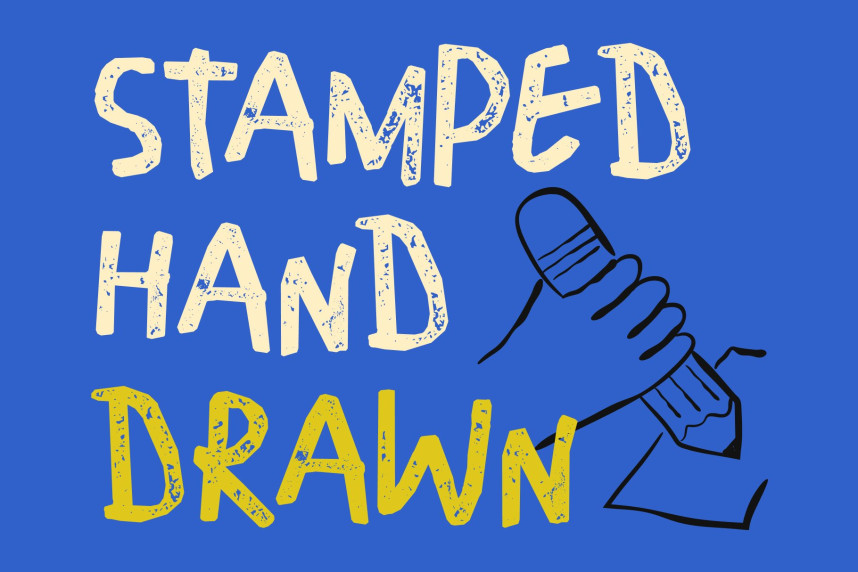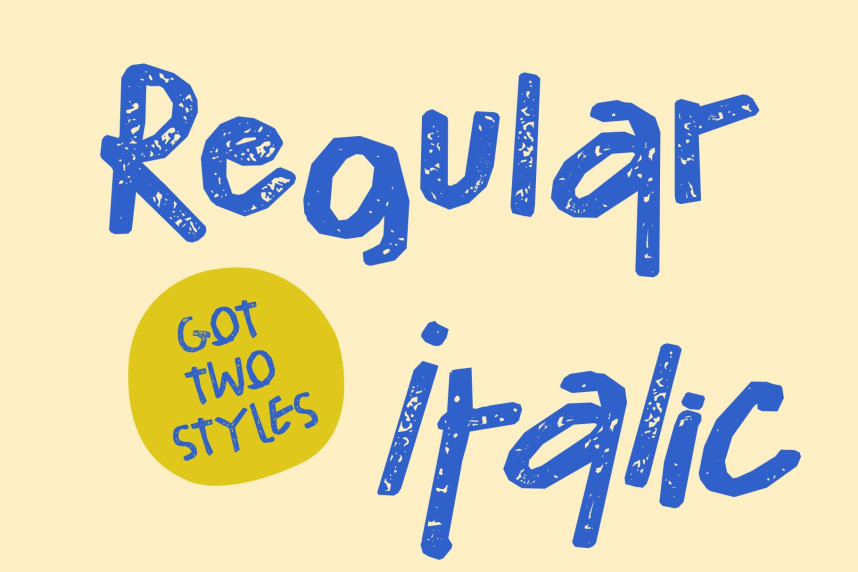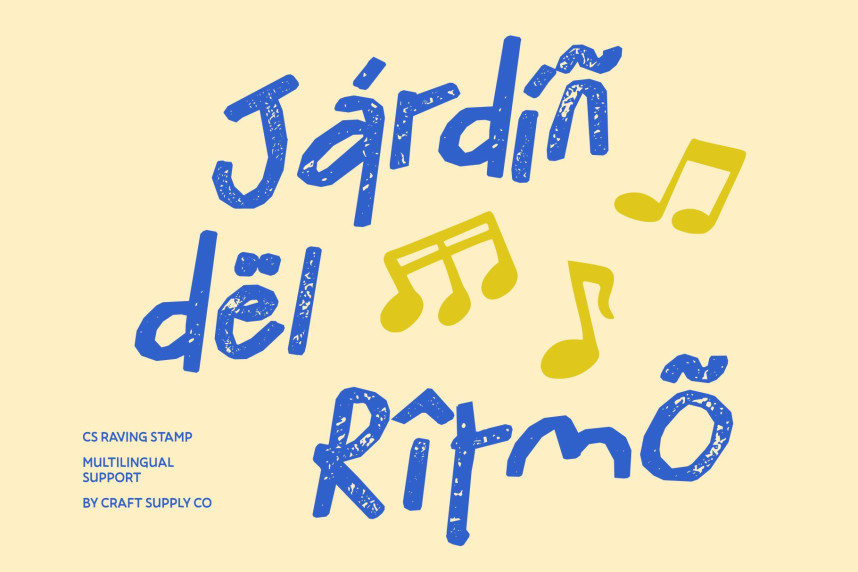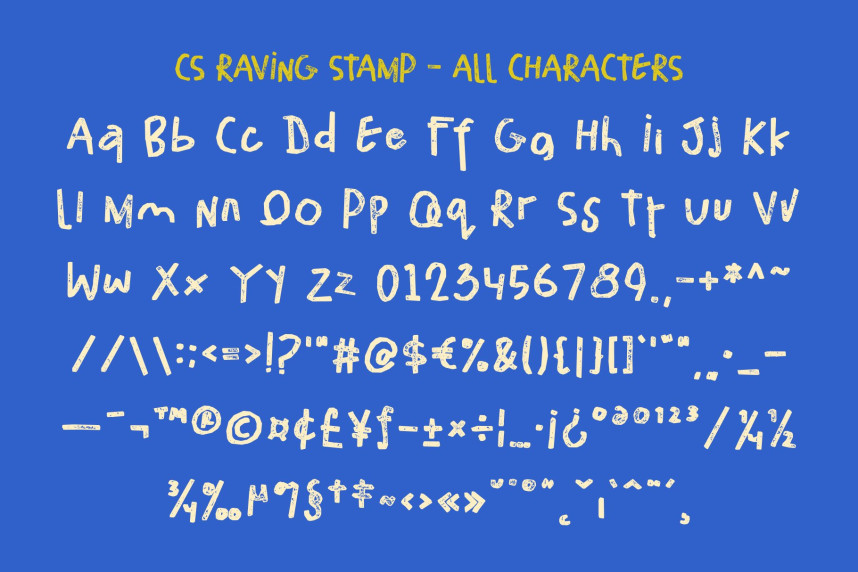
CS Raving Stamp Font
CS Raving Stamp Font – Messy Handwritten Display Font: Where Free Scribbles Meet Vintage Stamp Texture
Irregular Handwritten Forms with Playful Energy
This is a messy handwritten display font designed to capture the raw energy and spontaneity of freely scribbled strokes. Its irregular letterforms and expressive handwritten rhythm create a lively visual identity filled with creativity, personality, and playful charm. Every character feels dynamic and authentic, making the font perfect for fun and imaginative creative projects.